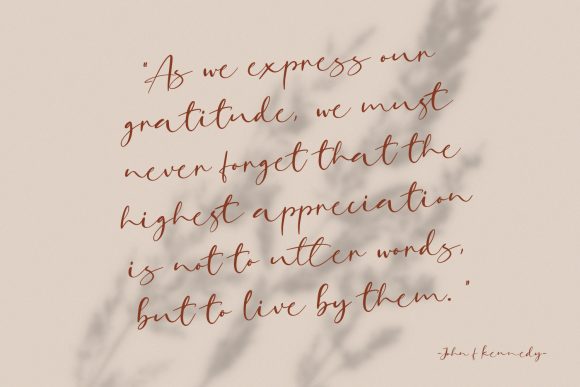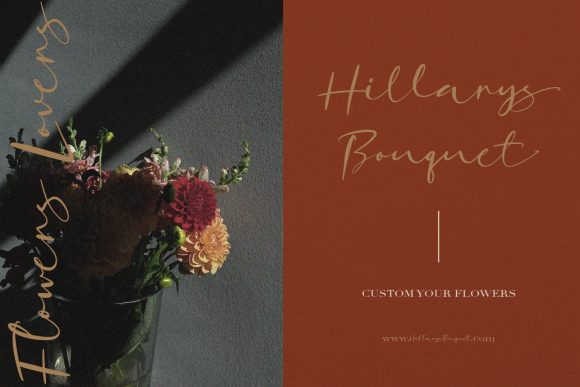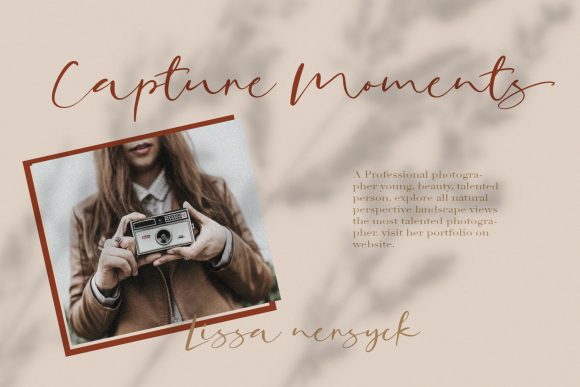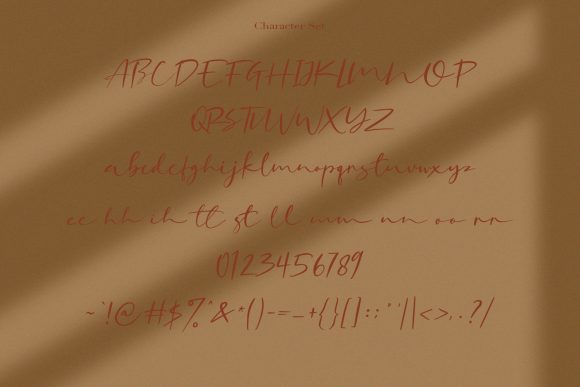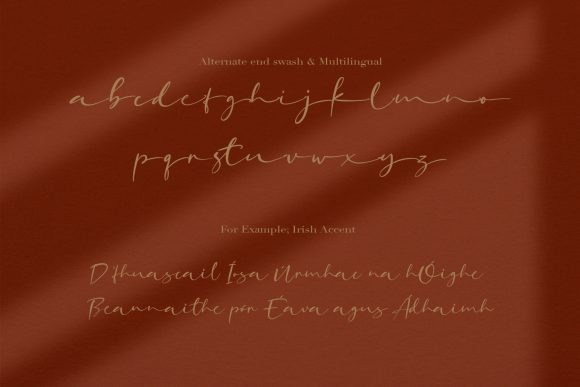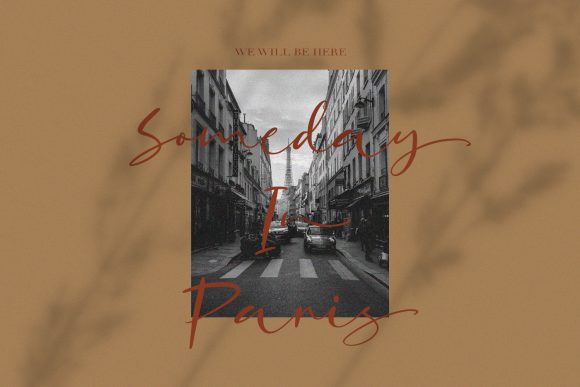
Introduction to Mokashin Font
As a designer, you know the thrill of bringing a creative project to life. It’s that moment when all the elements come together in perfect harmony, and you feel a sense of pride and accomplishment. But what if you had the perfect tool to elevate your design to the next level? That’s where the Mokashin Font comes in – a beautiful light handwritten font that will add a touch of luxury to any project you undertake.
Whether you’re working on a high-end marketing campaign or a personal design project, the Mokashin Font is a valuable resource that will take your work to new heights. Its unique feel and stunning impact make it a standout choice for designers who want to create something truly special.
Key Features of Mokashin Font
- High-quality design resource ideal for creative projects, offering a unique aesthetic.
- Perfect for designers seeking a distinctive and professional look for their designs, presentations, and marketing materials.
Honest Review: Mokashin Font
I recently stumbled upon the Mokashin Font, and I must say it’s been a game-changer for my design projects. As a designer, I’m always on the lookout for high-quality fonts that can elevate my creative work. The Mokashin Font definitely delivers.
- ✨ Unique and creative design that adds a touch of elegance to any project.
However, I do have to mention a few limitations:
- ⚠️ Limited font styles and weights available, which may not be ideal for projects that require a wide range of typography options.
Overall, I’m thoroughly impressed with the Mokashin Font. It’s a fantastic addition to any designer’s toolkit, and I highly recommend it for personal and small-scale projects. Just be mindful of the limitations, and you’ll be golden.
Introduction to Mokashin Font
Common Use Cases for Mokashin Font
Mokashin Font is perfect for use in a variety of creative projects, including:
- Event flyers and posters
- Blog posts and articles